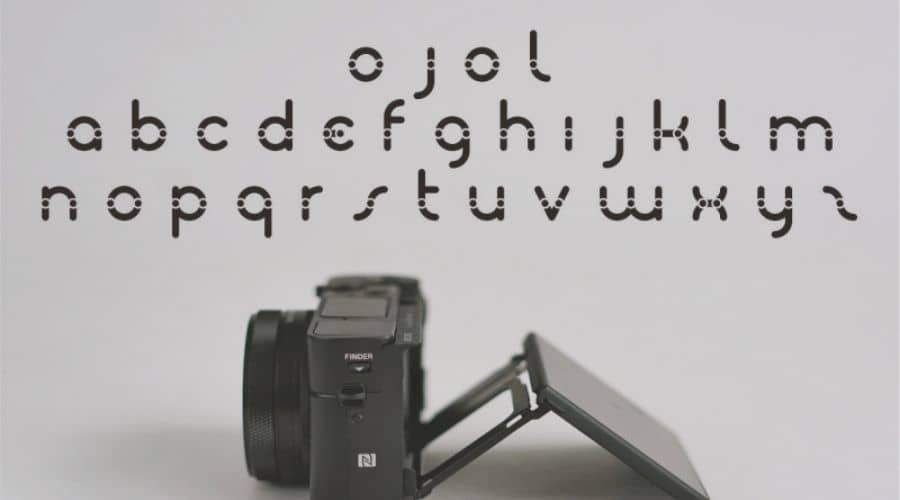
Ojol Font
Today, I will show you a great Display font named Ojol Font, which was last updated on January 2, 2020. It is completely free to download and install on your computer for your own use only! Ojol Font is only available for personal use! Starting with uppercase, lowercase, Numeric, and certain Special character and alternatives, fonts are available. The Font is designed and published by NJStudio. The font is available is TTF and OTF file types. Ojol Font is completely different from its identical fonts for extra features.
Ojol Font is great for logos, branding, invites, stationery, wedding designs, logos, business cards, covers, t-shirts, social media posts, and more. It will also be utilized to generate stunning image and text in a variety of colours and styles. The Font comes with multilingual support and loads of character, making it ideal for branding, print media, digital projects, and more.
| Name | Ojol Font |
| Style | Sans Serif, Display. |
| Designer | NJStudio |